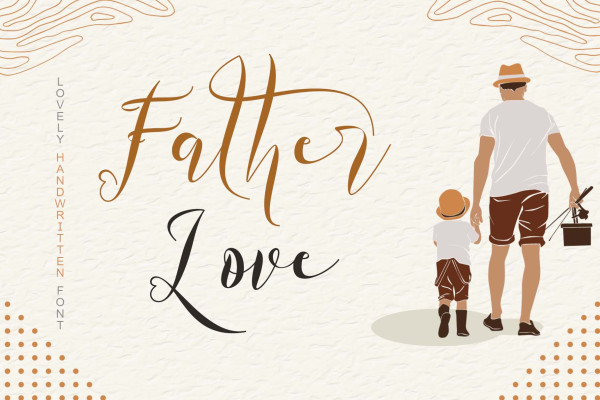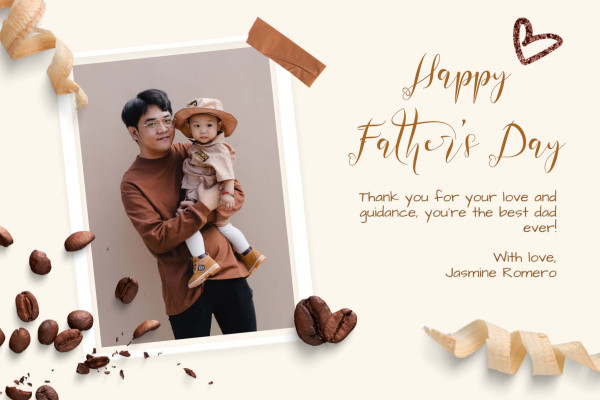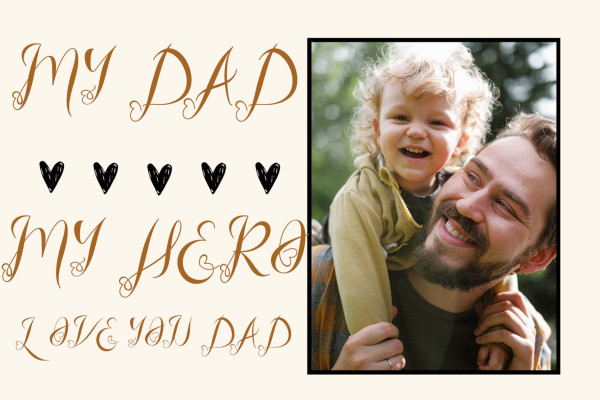
Father Love Font
Father Love Font is a beautiful and unique handwritten font. It is is perfect for Christmas, Father’s Day, Memorial Day, the 4th of July, teachers appreciation, graduation, and so much more!